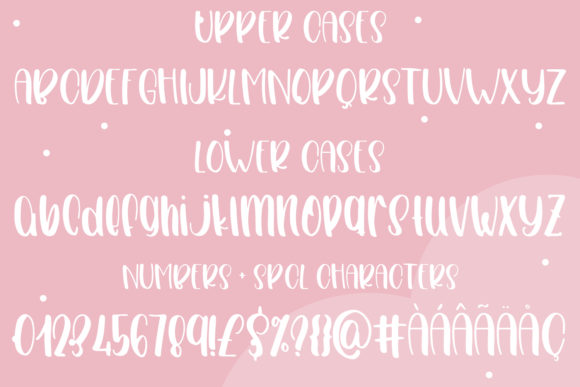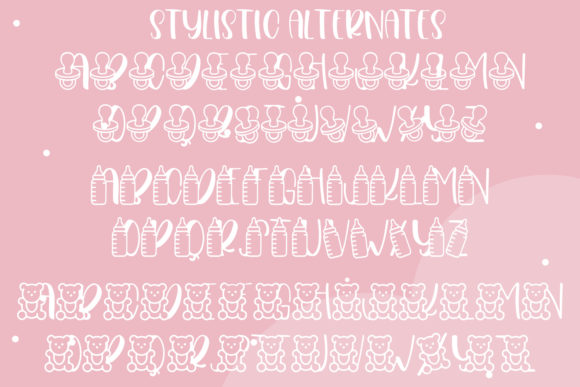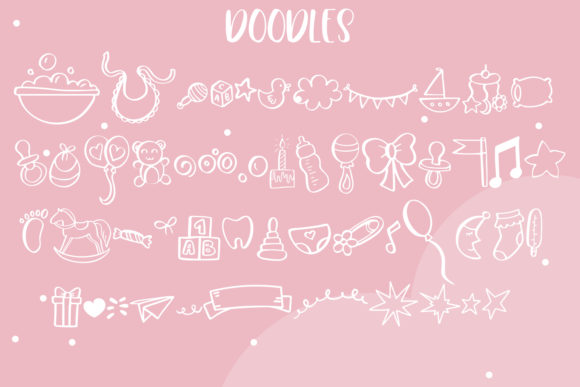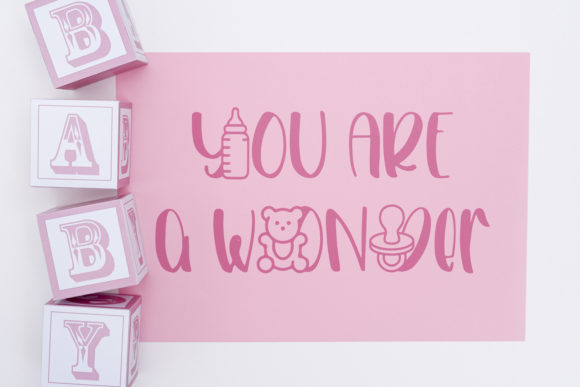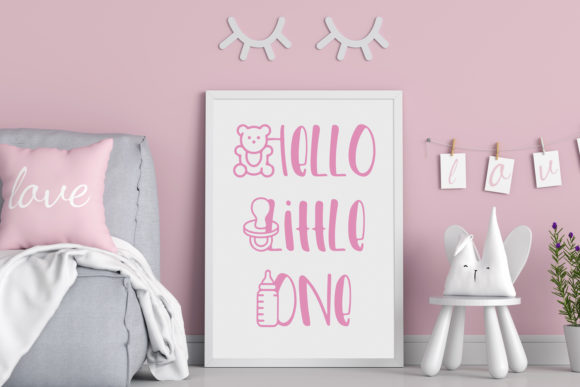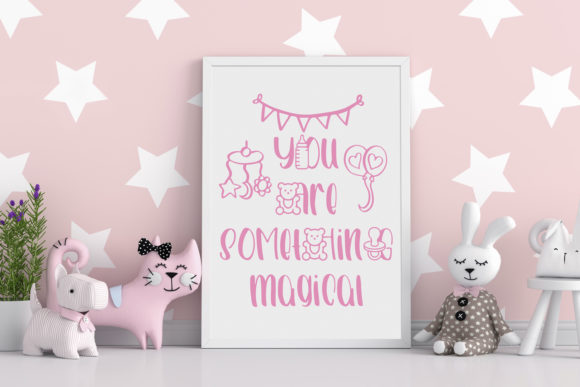
Remember the moment you stumbled upon the perfect font for a children’s book cover? The one that made your design leap off the page and capture the essence of your story? That’s the magic of finding the right typography, and it’s exactly what the Babylicious Font is all about.
With its chunky lettered charm and playful personality, this font is a designer’s dream come true for any children’s activity or school project. It’s not just a font – it’s an experience that brings your designs to life and adds a touch of authenticity to your work. And with its PUA encoded features, accessing all the glyphs and swashes is a breeze, making it a valuable addition to any designer’s toolkit.
Babylicious Font Key Features
- Font Family: Babylicious Font is a custom-designed script font family with a playful and whimsical feel.
- Unique Characteristics: Babylicious Font features a unique, hand-drawn style with intricate details and flourishes, giving it a personal touch.
Babylicious Font Review
Overall, I think the Babylicious Font is a fun, playful font that’s perfect for baby-related designs or anything that needs a touch of whimsy. Here are some things that work well:
- ✨ The font’s bubbly, rounded design is instantly recognizable and cute.
- ✨ The font is highly customizable, with options for bold, italic, and regular styles.
- ✨ It’s a great choice for headings, as the large size really makes the font stand out.
- ⚠️ The font may be too childish for some designs, especially those that require a more serious tone.
- ⚠️ The font’s rounded design can make it difficult to read at small sizes.
- ⚠️ There are limited language support options, which may be a problem for designers working on multilingual projects.
Overall, I think the Babylicious Font is a solid choice for designers looking for a fun, playful font. While it may have some limitations, it’s a great option for baby-related designs or anything that needs a touch of whimsy. With some careful consideration of its limitations, I think this font could be a great addition to any designer’s toolkit.
Tips for Getting the Most Out of Babylicious Font
Use the Babylicious font for designs that require a playful and whimsical touch.
Pair the font with pastel colors and cute illustrations to create a cohesive design.
Experiment with different font sizes and styles to add visual interest to your design.
Use the Babylicious font for:
Children’s birthday party invitations
Children’s clothing and accessory labels
Children’s book covers and illustrations
Alternative Fonts to Babylicious Font
Lovely Script
Lovely Script is a beautiful, handwritten font perfect for creating a whimsical and feminine look. It’s ideal for use in wedding invitations, baby shower invitations, and other events where a touch of elegance is desired.
Comparison to Babylicious Font: Lovely Script has a more elegant and refined feel compared to Babylicious Font, which is more playful and casual. Lovely Script is also more versatile and can be used in a wider range of applications.
Great Vibes is a modern, cursive font that’s perfect for creating a fun and upbeat look. It’s ideal for use in social media graphics, advertisements, and other applications where a bold and eye-catching font is desired.
Comparison to Babylicious Font: Great Vibes has a more modern and edgy feel compared to Babylicious Font, which is more classic and timeless. Great Vibes is also more suitable for use in digital applications, while Babylicious Font is more suitable for use in print materials.
Alex Brush is a beautiful, handwritten font that’s perfect for creating a personal and intimate look. It’s ideal for use in wedding invitations, baby shower invitations, and other events where a touch of warmth and personality is desired.